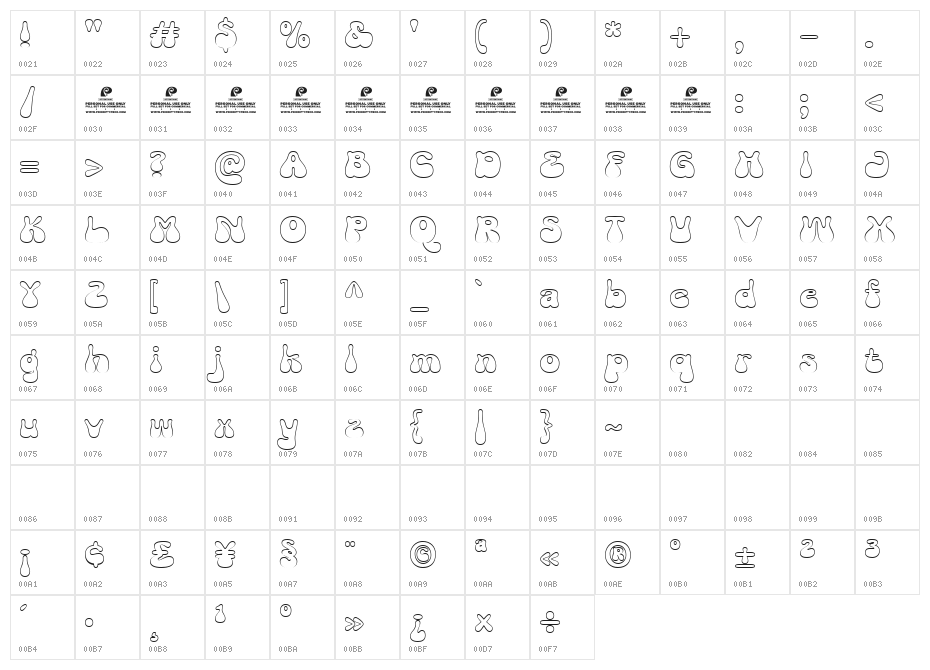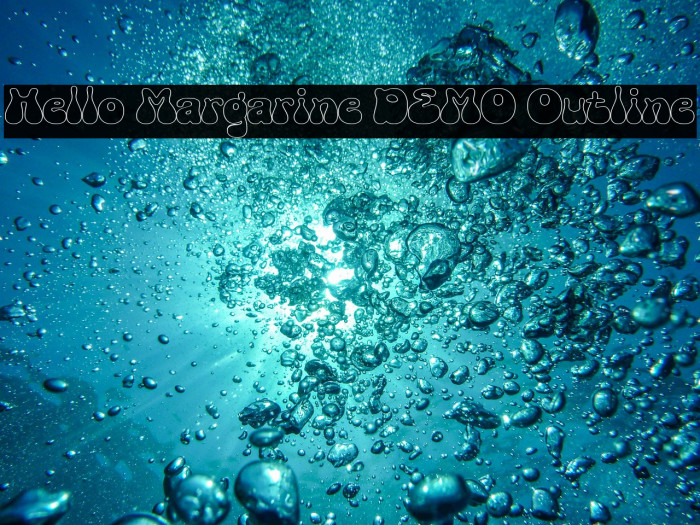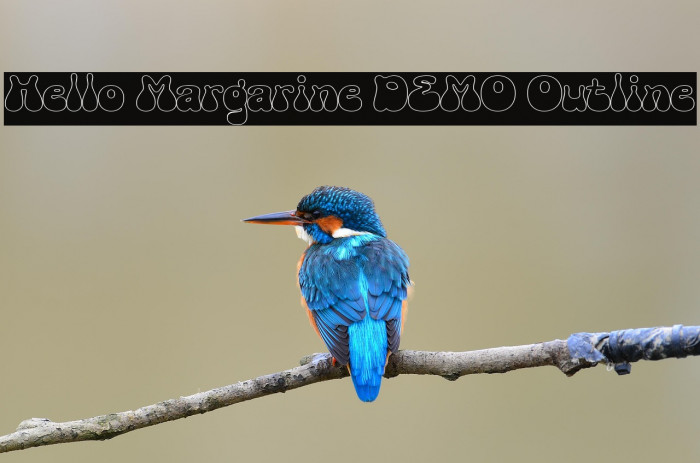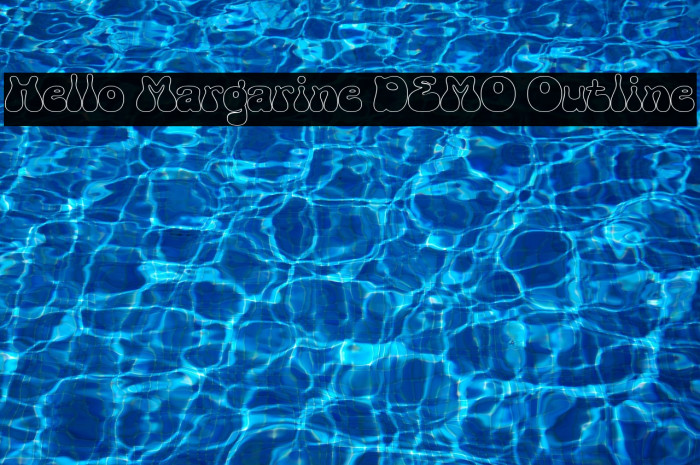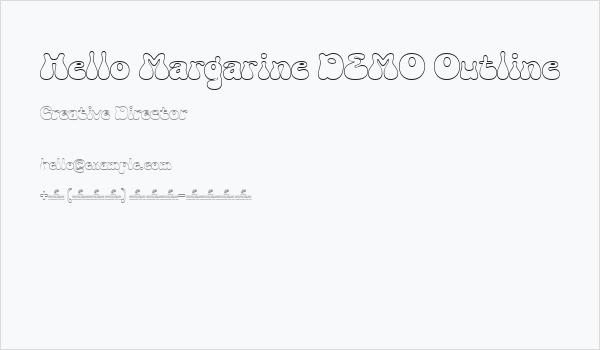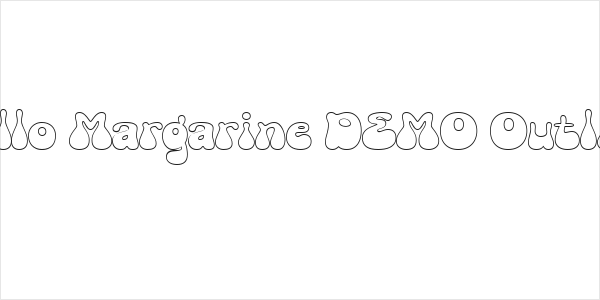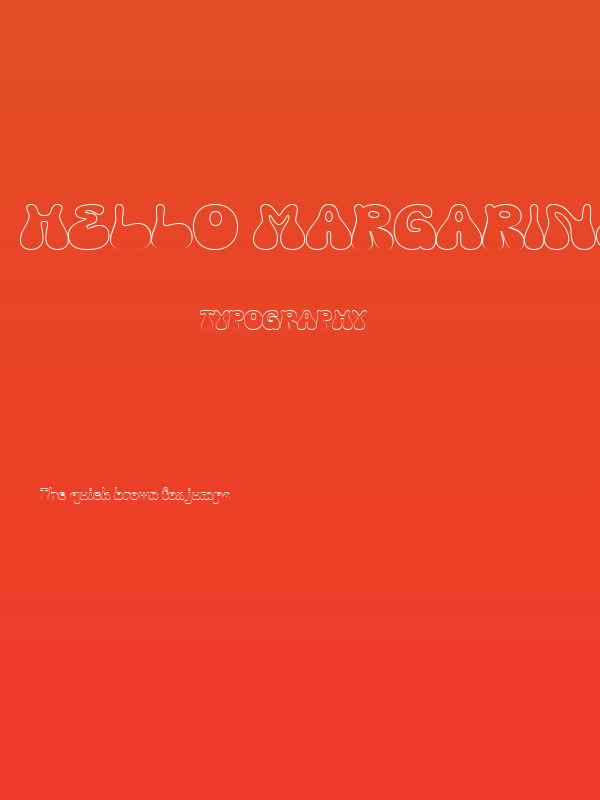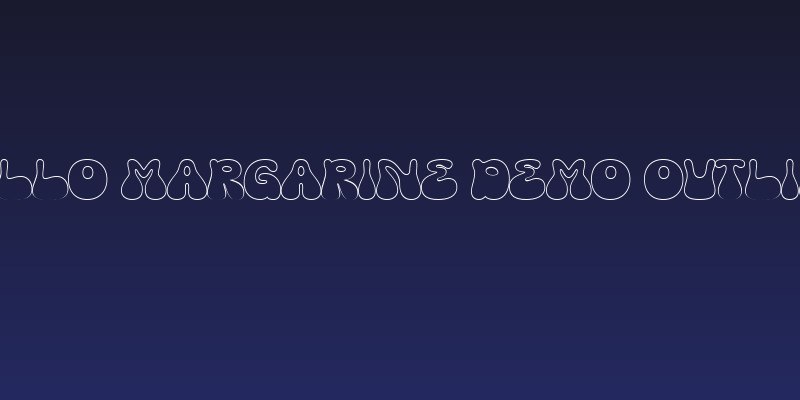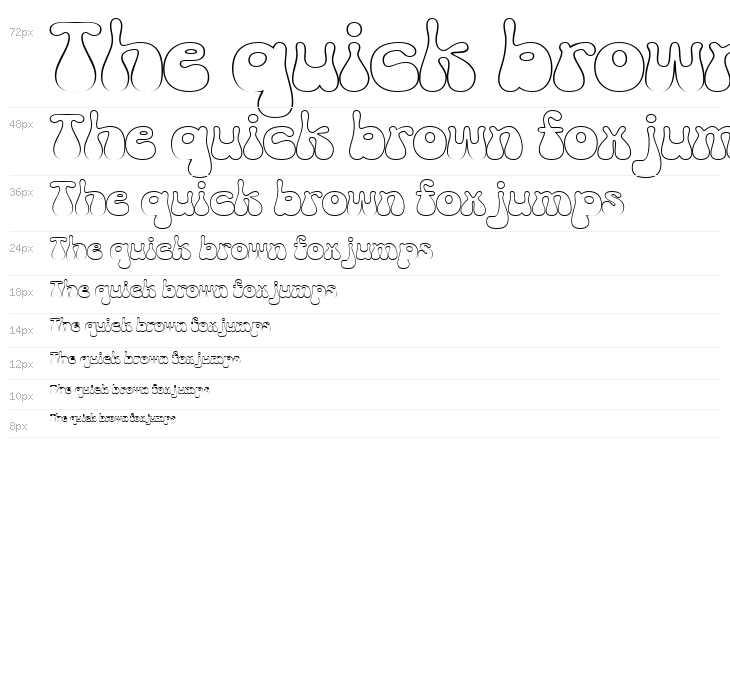
Hello Margarine DEMO Outline Font
Hello Margarine DEMO Outline Description
This playful and whimsical font features a unique outline style that gives it a bubbly and fun appearance. The characters are rounded and bold, with a consistent stroke width that creates a cohesive look across both uppercase and lowercase letters. The font's design is reminiscent of retro styles, making it ideal for projects that require a touch of nostalgia or a playful vibe. Its outline nature allows for creative layering and coloring, making it versatile for various design applications. The special characters maintain the same playful aesthetic, ensuring a uniform look throughout any text.
| Overall Style | Retro, Playful |
| Proposed Projects | Ideal for children's book covers, playful branding, retro-themed posters, and creative social media graphics. |